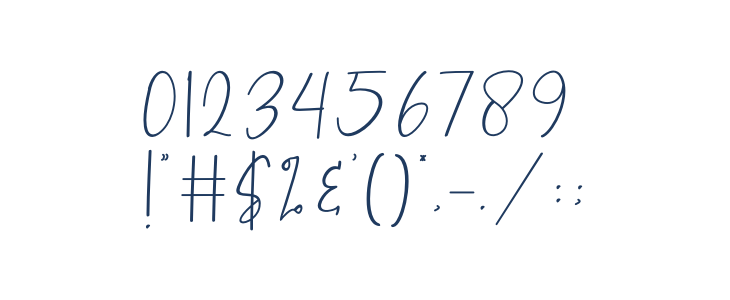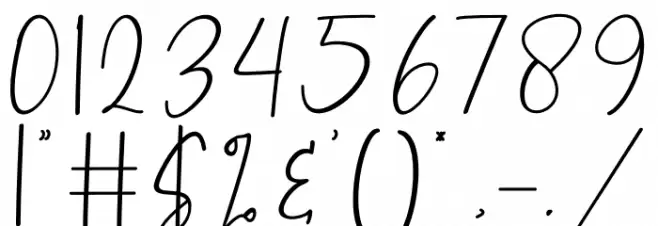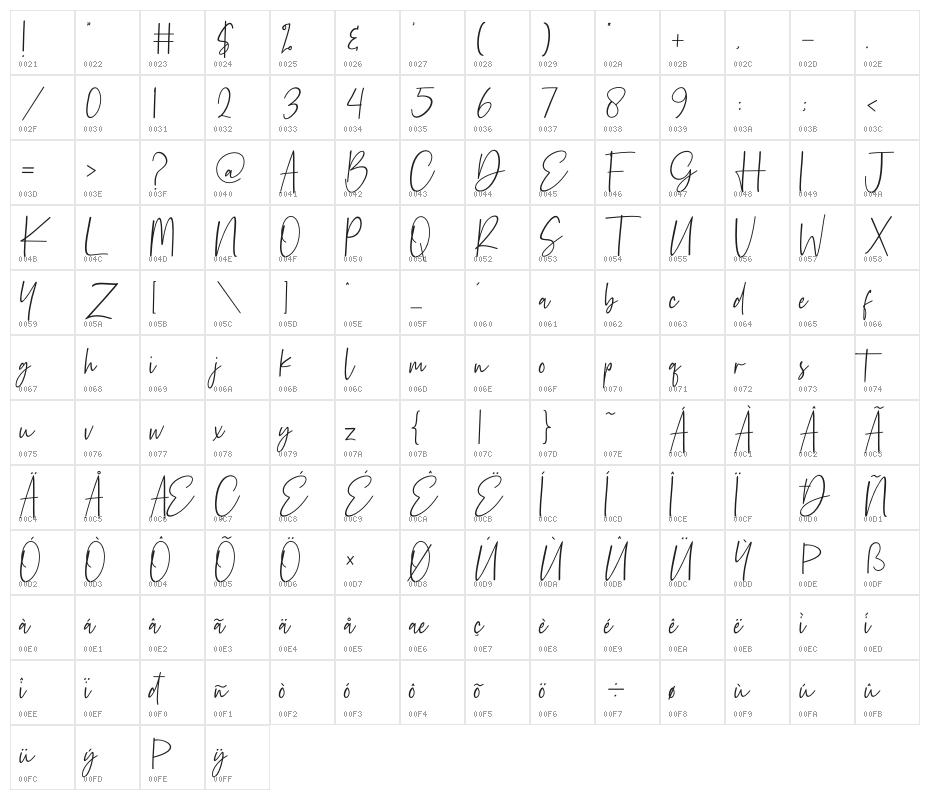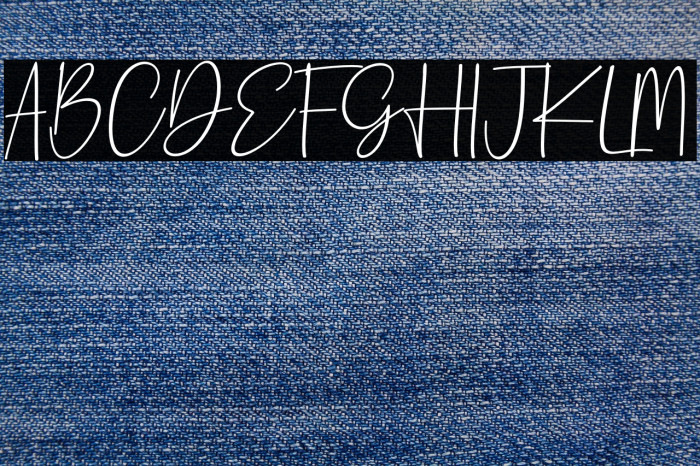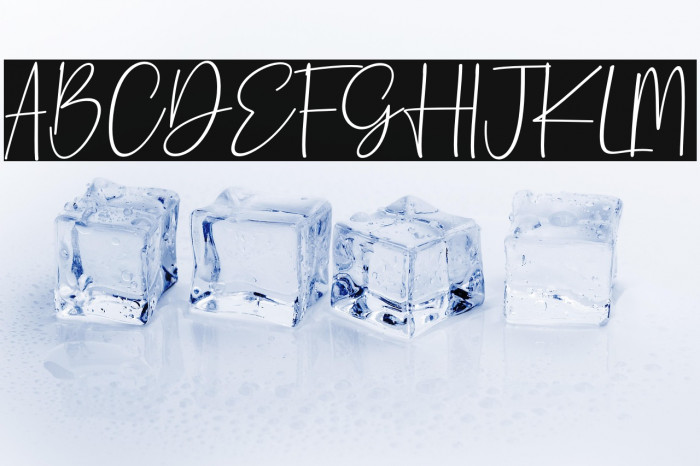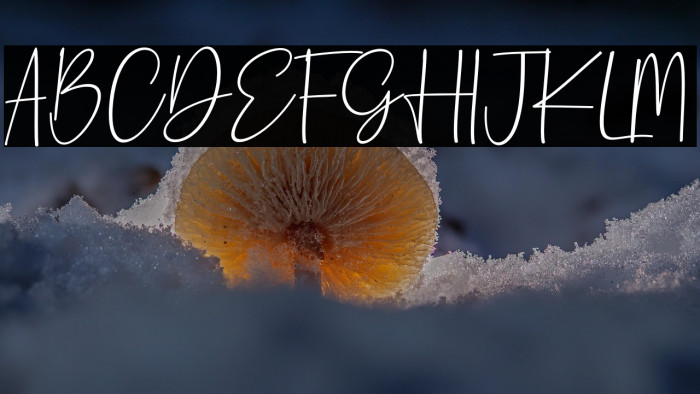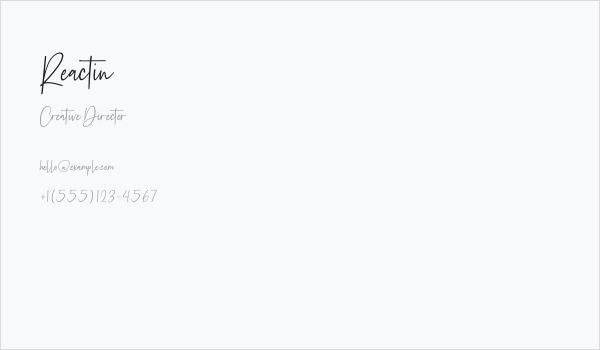
Reactin Font
Reactin Description
This font features a lively and expressive handwritten style, characterized by its fluid and dynamic strokes. The uppercase letters are tall and slender, with a playful yet elegant flair, while the lowercase letters maintain a consistent flow with slightly exaggerated loops and curves. The numerals are distinct and easy to read, complementing the overall aesthetic. Special characters are creatively integrated, adding to the font's versatility. The design exudes a sense of spontaneity and creativity, making it suitable for projects that require a personal touch.
A lively handwritten font with fluid strokes and playful elegance from Uncategorized fonts.
- Proposed Projects: Ideal for greeting cards, invitations, personal branding, and creative projects that require a personal and artistic touch.
- Use Case: Logos, Invitations, Personal Branding